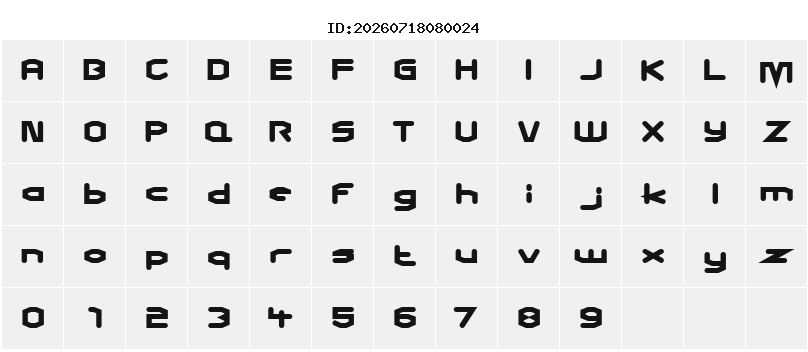
Charles in Charge Preview
• Designer: Ray Larabie
• Manufacturer: Larabie Fonts
Charles in Charge.ttf is a modern, elegant sans-serif font designed for ultimate readability and visual harmony. Perfect for branding, headlines, web design, and print materials.